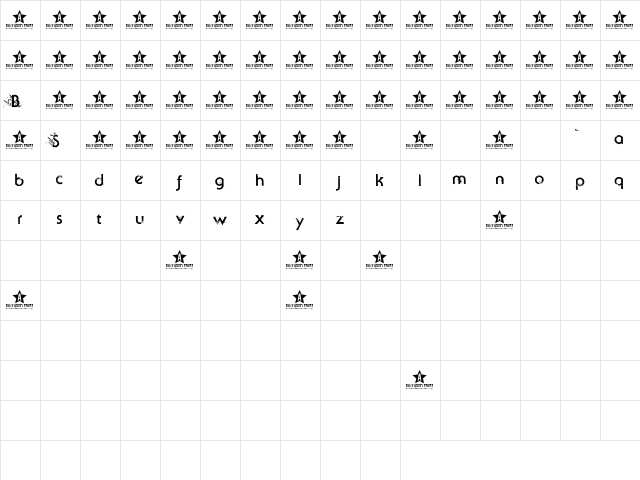
Beyond Sky trial Free Font
Beyond Sky trial
Style: trial
Foundry: Billy Argel
Designer: Billy Argel
Design Context for Beyond Sky
Beyond Sky is a composed and adaptable typeface that performs quietly and consistently across a wide range of design contexts.